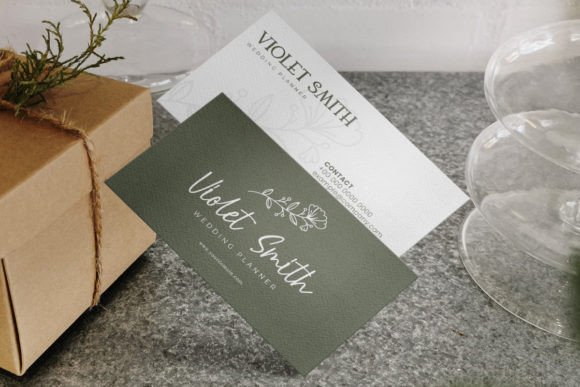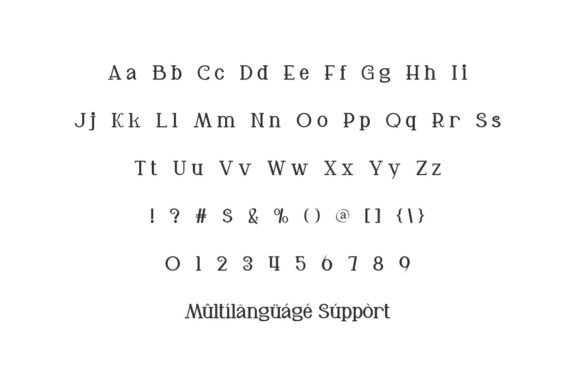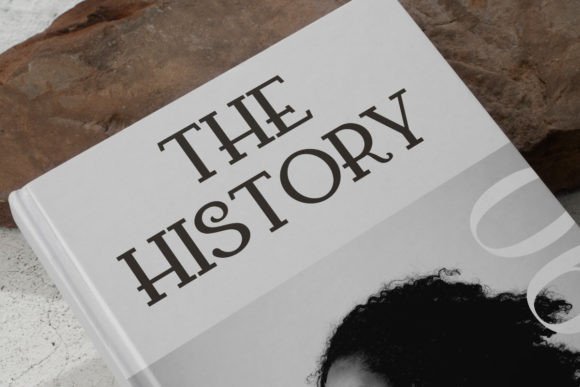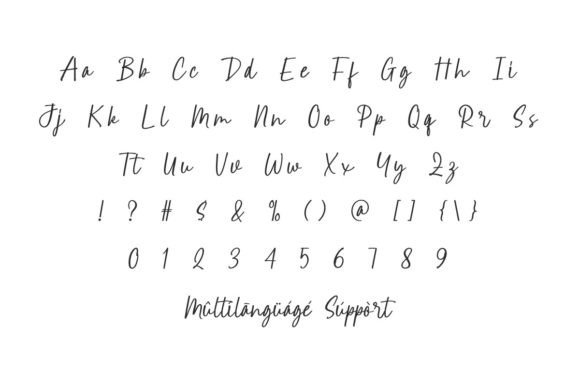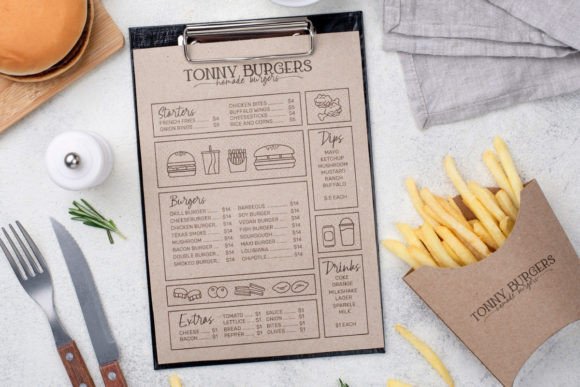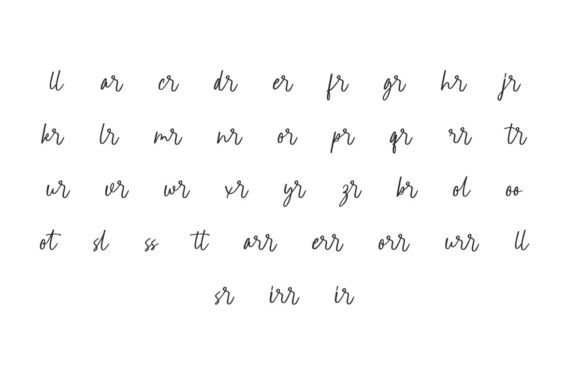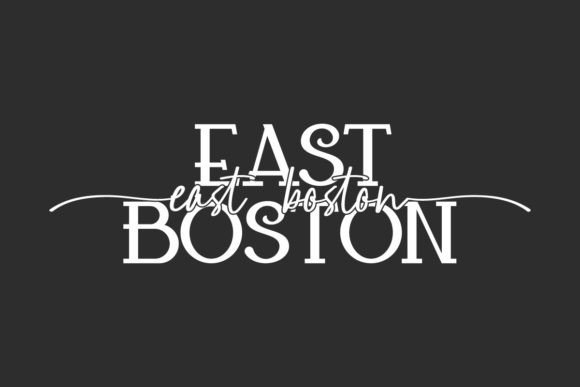
Introducing East Boston Font: Elevate Your Designs with Elegance and Versatility
In the world of design, fonts play a crucial role in conveying messages, expressing creativity, and establishing brand identities. For designers and crafters seeking a unique and elegant touch, the East Boston Font duo is an exceptional choice. This versatile font combination consists of two distinct styles: a unique serif display font and a handwriting script font. Together, they offer a perfect blend of modern minimalism and classic sophistication, making them suitable for a wide range of industries and design projects.
Unleash Your Creativity with Two Distinct Styles
The East Boston Font duo is characterized by its two complementary styles:
- Unique Serif Display Font: This font features a distinctive serif design that adds a touch of elegance and refinement to any project. Its clean lines and minimalist aesthetic make it perfect for headings, titles, and display text.
- Handwriting Script Font: The handwriting script font in the East Boston Font duo offers a more personal and organic feel. Its fluid strokes and natural curves bring a sense of warmth and authenticity to your designs, ideal for quotes, paragraphs, and personal messages.
The East Boston Font duo is incredibly versatile, making it suitable for various industries and design applications:
- Craft and DIY Projects: Add a personal touch to your craft and DIY projects with the East Boston Font duo. Its unique styles will elevate your branding, packaging, and instructional materials.
- Fashion and Beauty: Bring a touch of elegance to your fashion and beauty designs. Use the serif display font for logos and titles, and the handwriting script font for product descriptions and promotional materials.
- Floral and Wedding Designs: Create stunning wedding invitations, floral arrangements, and event branding with the East Boston Font duo. Its classic yet modern aesthetic will make your designs truly unforgettable.
- Publishing and Writing: Writers, authors, and publishers will love the East Boston Font duo for its readability and style. Use it for book covers, articles, and blog posts to add a professional touch.
- Restaurants and Cafes: Elevate your restaurant or cafe’s branding with the East Boston Font duo. Its elegant and modern aesthetic will make your menus, signage, and promotional materials stand out.
The East Boston Font duo is PUA (Private Use Area) encoded, ensuring that you can easily access all the amazing glyphs and ligatures. This feature allows you to:
- Explore a wide range of characters: The PUA encoding enables you to access a vast library of characters, including special glyphs, ligatures, and swashes.
- Customize your designs: With easy access to glyphs and ligatures, you can tailor your designs to fit your brand’s unique style and message.
Why Choose East Boston Font?
The East Boston Font duo stands out from other font combinations due to its:
- Unique and elegant design: The font’s distinctive serif and handwriting script styles will add a touch of sophistication to your designs.
- Versatility: Suitable for various industries and design applications, the East Boston Font duo is an excellent investment for designers and crafters.
- PUA encoding: Easy access to glyphs and ligatures ensures that you can customize your designs with ease.
The East Boston Font duo is an exceptional choice for designers and crafters seeking to elevate their designs with elegance and versatility. Its unique serif display and handwriting script styles, combined with PUA encoding, make it an excellent investment for a wide range of industries and design applications. Whether you’re working on a craft project, fashion brand, or publishing venture, the East Boston Font duo is sure to bring a touch of sophistication and style to your creations.